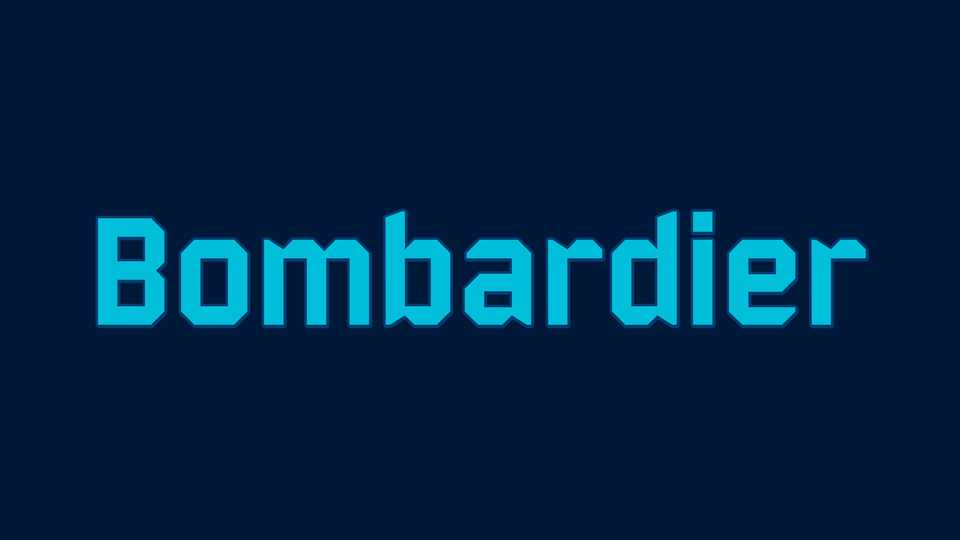
Downoad Bombardier font, a sharp display typeface inspired by the game Risk of Rain 2 and extended with Cyrillic symbols. Bombardier features a blocky design and is perfect for projects relating to the tech industry, the gaming logo, posters and other artworks.